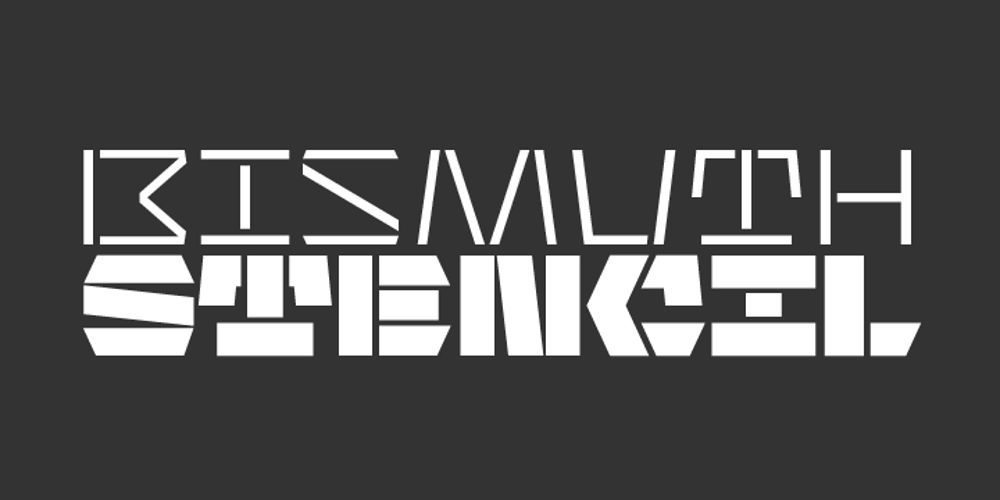
Bismuth Stencil
Bismuth Stencil font
Bismuth Stencil Font Family was designed by Ondrej Jób and published by Setup Type. Bismuth Stencil contains 9 styles and family package options. Bismuth is a simple versatile multi-purpose stencil display typeface with nine weights. Both the upper and the lower case are capitals — the paired letters (e.g. Aa, Bb) differ in construction but keep the same width. The width is also consistent across all weights, making the fonts easily interchangeable. The nine styles are accompanied with a free font Bismuth Stencil Symbols which contains more than one hundred various arrows, symbols and patterns for even more striking display typography. Learn more about the typeface and its OpenType features at Urtd.net.